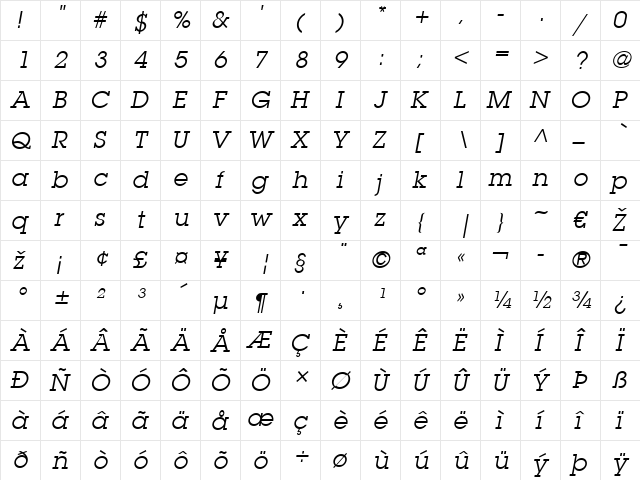
LubalinGraph LT Italic Font Preview
LubalinGraph LT Italic
Design Context for LubalinGraph LT Typeface
LubalinGraph LT offers clean, dependable letterforms without strong stylistic allegiance, making it a practical choice for designers who need flexibility. The slanted form adds forward momentum and visual energy. Its slender proportions lend an understated elegance to any composition.
Pro Tip: Use LubalinGraph LT for emphasis, pull quotes, and subheadings where its slanted energy can add rhythm to the layout.